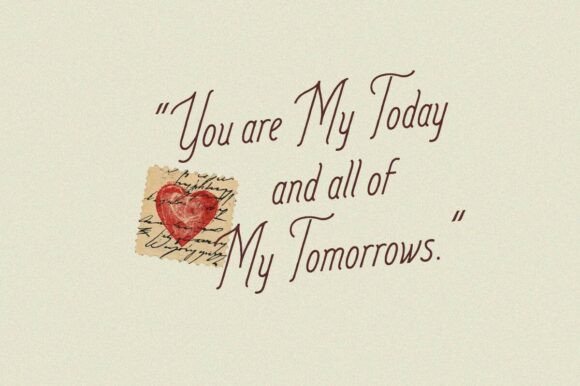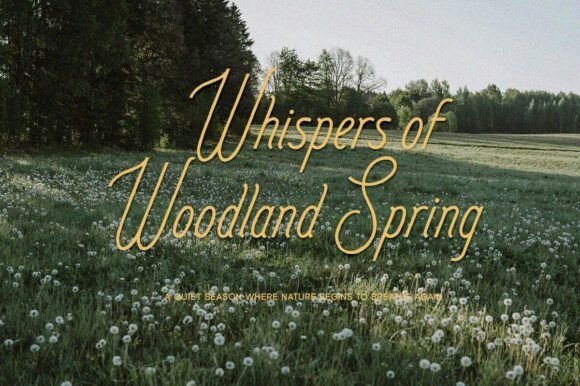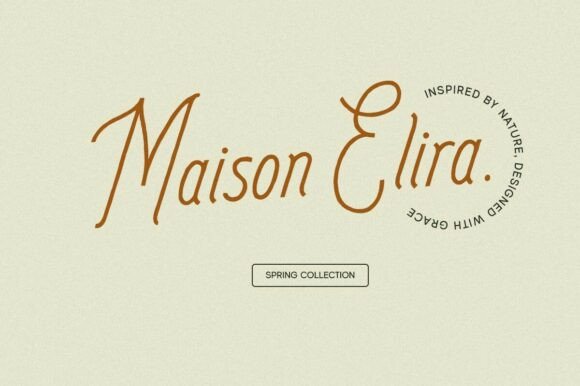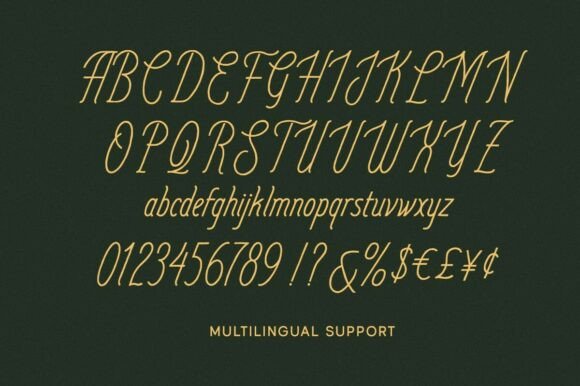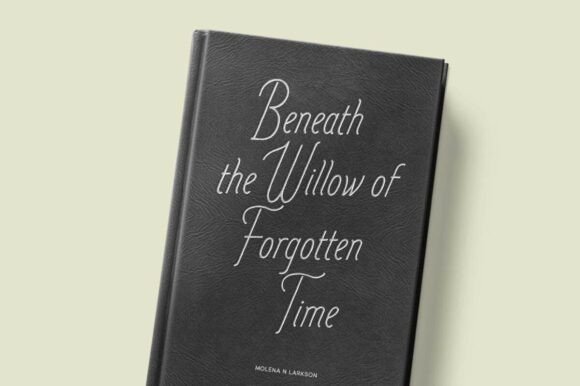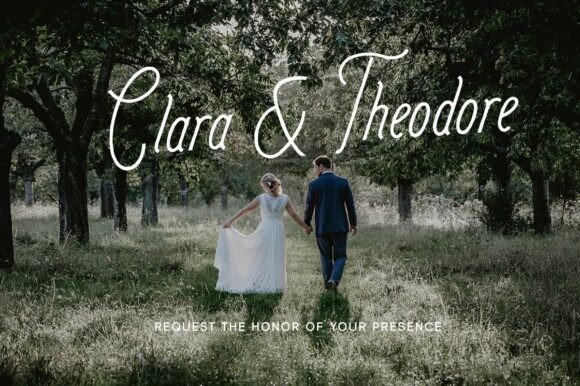
The Elegance of Aurelisse Pen Font: A Designer’s Delight
I’ll never forget the time I was working on a wedding invitation project, and my client asked for a font that was both elegant and personal. I scoured the internet, tried out countless fonts, but nothing seemed quite right. That was until I stumbled upon Aurelisse Pen Font. It was like a breath of fresh air – smooth, refined, and effortlessly beautiful. In this article, I’ll share my love for this stunning font, its features, and how to make the most of it in your designs.
A Personal Review of Aurelisse Pen Font
- ✨ Smooth and refined strokes: Aurelisse Pen Font glides across the page like a quiet signature on a calm day. Its gentle confidence is palpable, making it perfect for projects that require a touch of elegance.
- ✅ Effortless elegance: This font exudes a subtle sophistication that’s hard to find in handwritten fonts. It’s perfect for projects that require a personal touch without looking too casual.
- 🌈 Versatility: Aurelisse Pen Font works beautifully in a variety of contexts, from wedding invitations to branding projects, and even digital media.
While Aurelisse Pen Font is an exceptional font, it’s not without its quirks. For instance:
- 🤔 Limited character set: Some users have noted that the font’s character set could be more extensive. However, for most projects, the existing characters are more than sufficient.
- ⚠️ Not suitable for body text: Due to its elegant and refined nature, Aurelisse Pen Font is best used for headings, titles, or short paragraphs. It may not be the best choice for lengthy body text.
- Experiment with OpenType features, such as ligatures and stylistic alternates, to add visual interest to your text.
- Explore the font’s glyphs and OpenType features to create unique and customized text.
- Use the font’s built-in features, such as ligatures and stylistic alternates, to enhance your text.
The Designer Inspiration Behind Aurelisse Pen Font
While the true story behind Aurelisse Pen Font remains a mystery, it’s easy to imagine that its designer was inspired by the gentle curves and flowing lines of handwritten script. Perhaps they sought to create a font that would bring a touch of elegance and sophistication to everyday projects. Whatever the inspiration, Aurelisse Pen Font is a testament to the power of beautiful typography.
| Font Name | Aurelisse Pen Font |
| Author | letterhend |
| What makes Aurelisse Pen Font unique? | Aurelisse Pen Font’s smooth, refined strokes and effortless elegance set it apart from other handwritten fonts. |
| Is Aurelisse Pen Font suitable for body text? | No, Aurelisse Pen Font is best used for headings, titles, or short paragraphs due to its elegant and refined nature. |
| Can I use Aurelisse Pen Font in digital media? | Yes, Aurelisse Pen Font works beautifully in digital media, including websites, social media, and email marketing campaigns. |